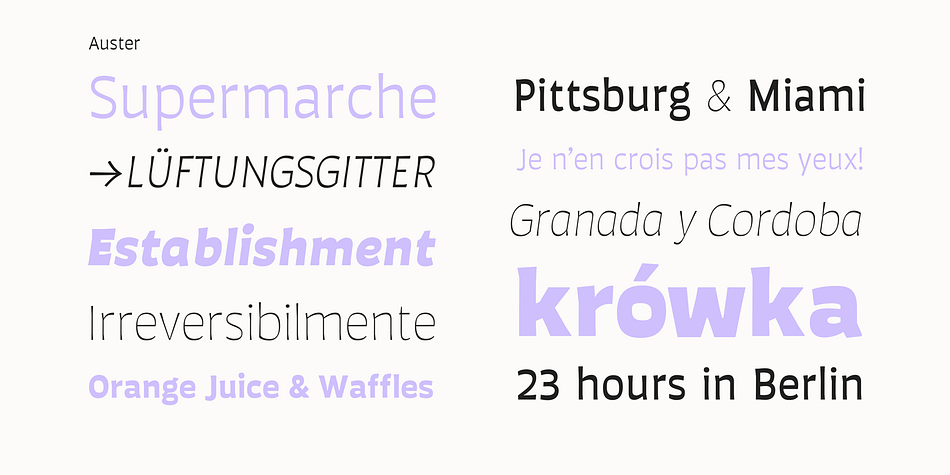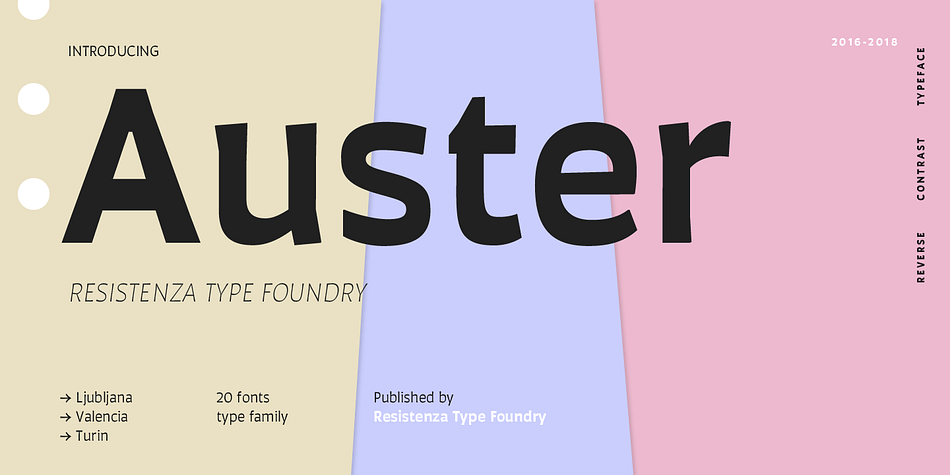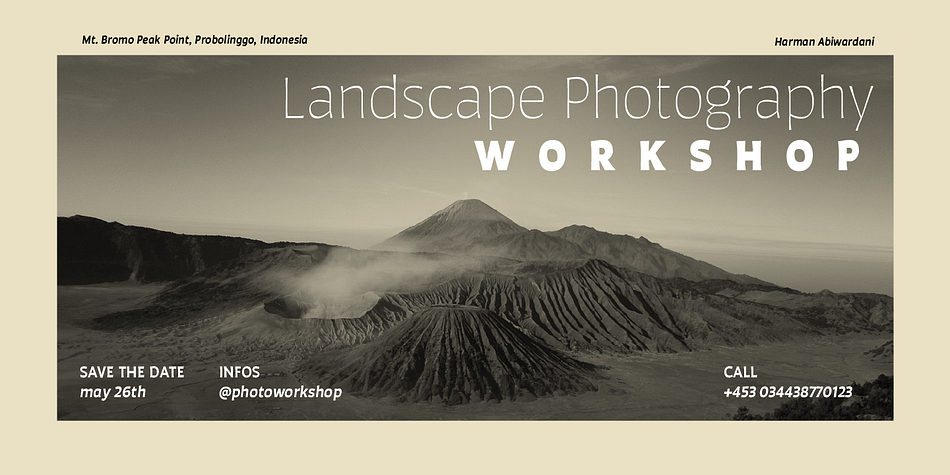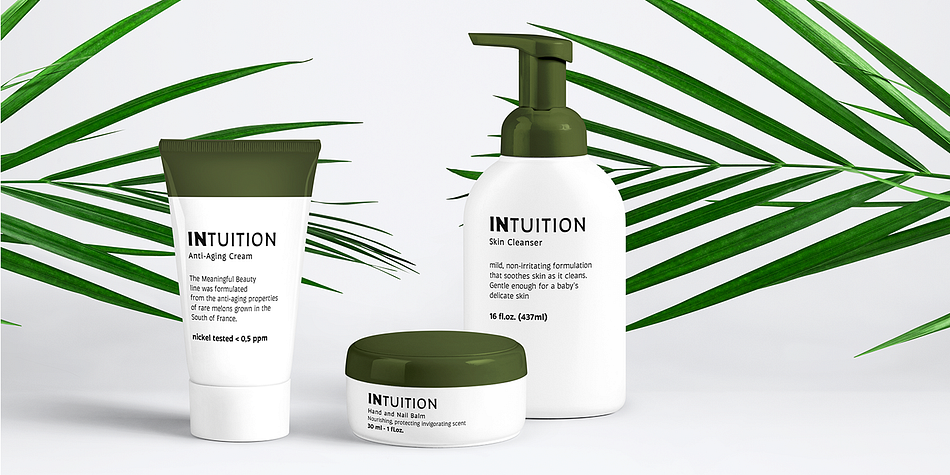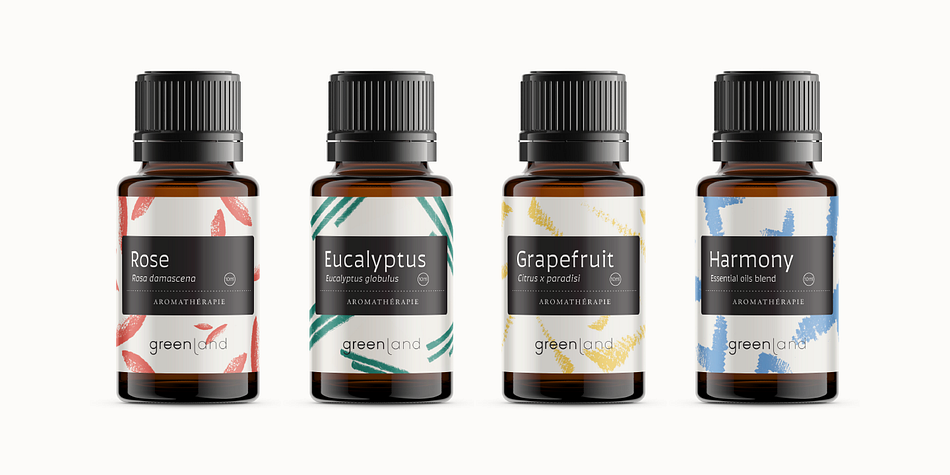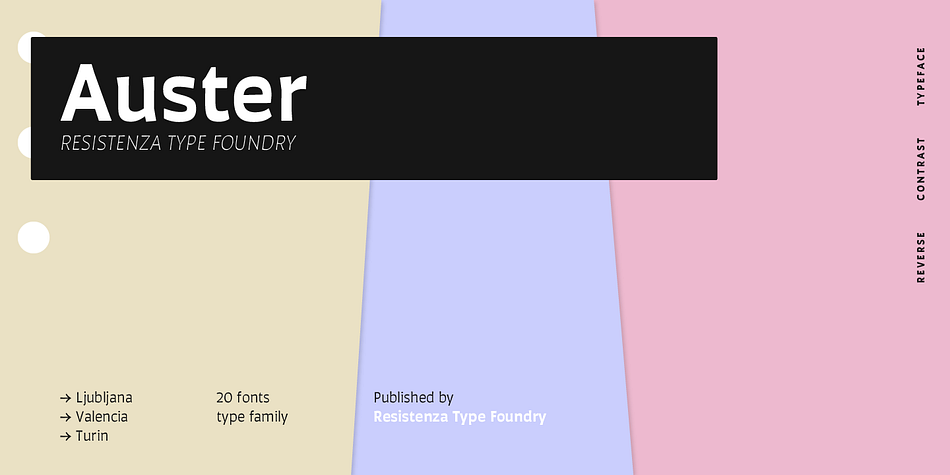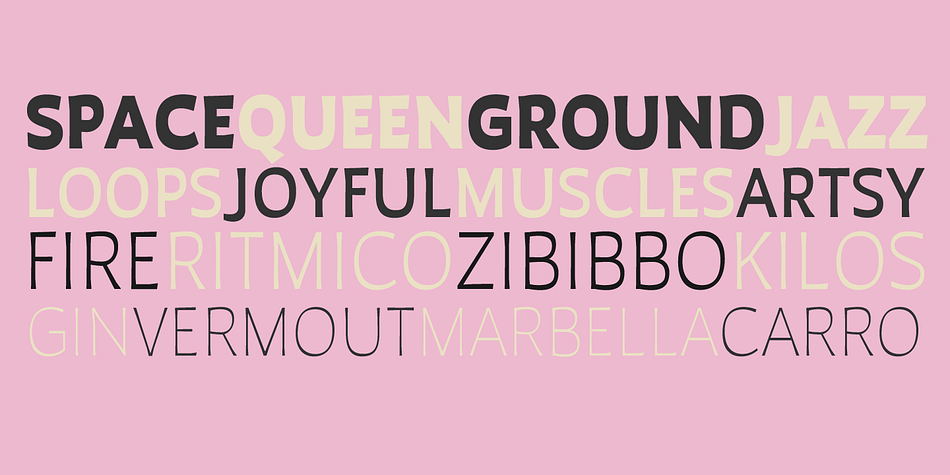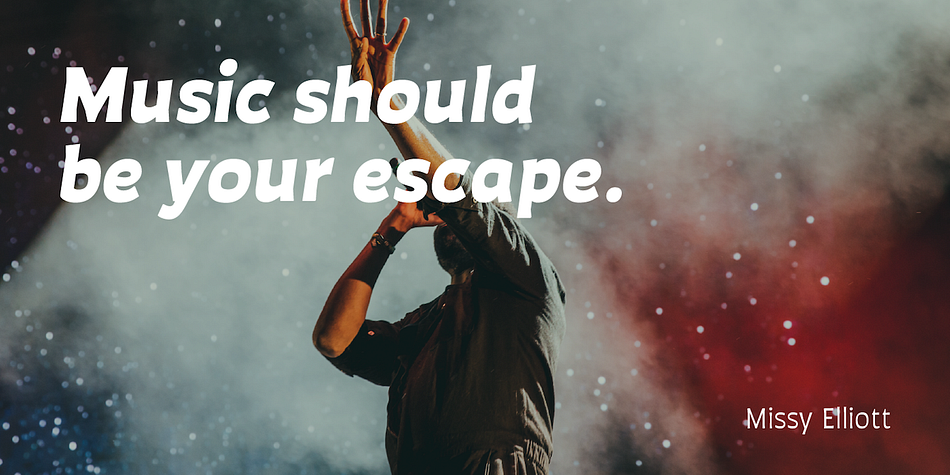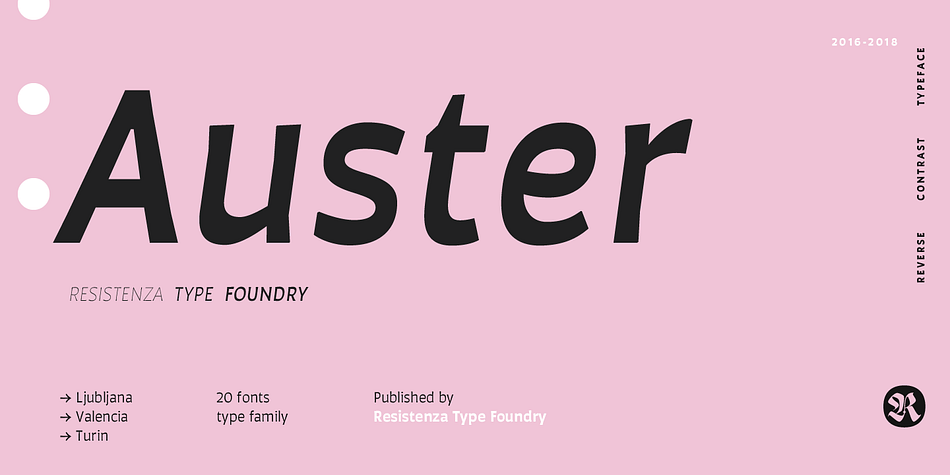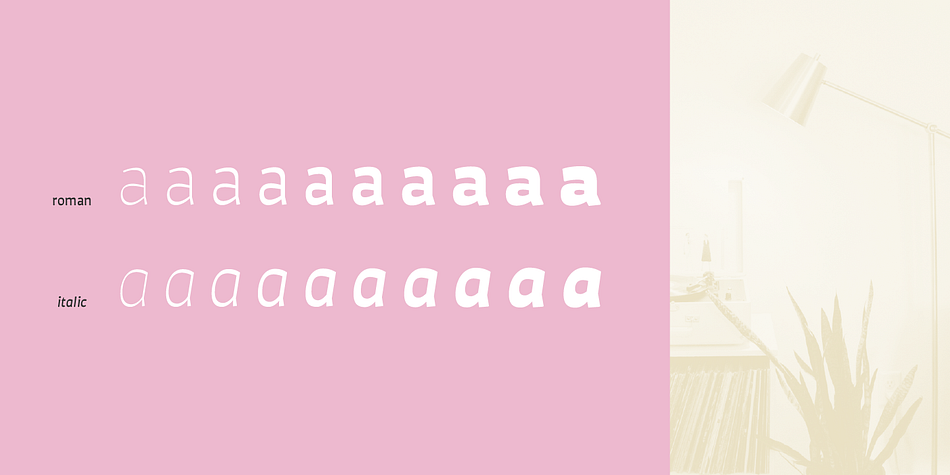
Designed by Giuseppe Salerno and Paco González, Auster is a sans serif font family. This typeface has twenty styles and was published by Resistenza.es.
Auster, A Sans with Flair!
Auster packs sensational personality in its fine-tuned forms. Confident and quirky, yet comfortable to read, this distinctive san serif family stands out from the crowd. The curves cinch and strokes flair in unconventional places making Auster an unashamed rebel sure to turn heads.
Originally designed during the TipoBrda Workshop in Slovenia. Resistenza spent 2 years developing this 2 style (roman & Italic), 20 weight family. The subtle reverse contrast characters were first painted with a flat brush, then polished in pencil on tracing paper before being carefully digitised, to include language support and all the opentype features you expect in a quality contemporary font.